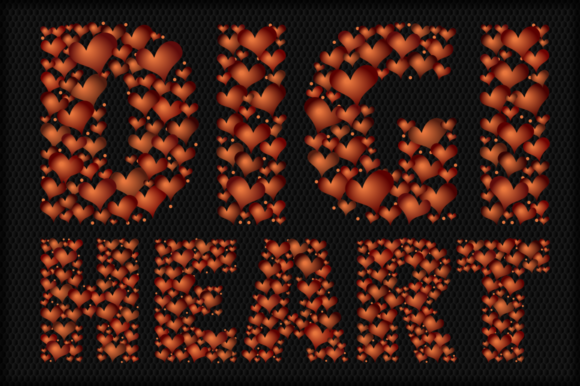
Venture into the realm of creativity with Digiheart Font, a symphony of colors that will captivate your digital expressions. Embark on a chromatic journey where your designs dance with vibrancy and allure.
Unleash your imagination with three distinct styles, each possessing its own charm. Explore the whimsical strokes of Digiheart Outline, the playful charm of Digiheart 3D, and the captivating elegance of Digiheart Rough. Let your designs resonate with individuality and flair.
With Digiheart Font, the boundaries of your creativity dissolve. Create stunning logos that burst with color, social media posts that ignite engagement, and digital art that leaves viewers spellbound. Transform your online presence into a mesmerizing spectacle, attracting followers and customers alike.
Immerse yourself in a world where color knows no bounds. Paint your digital canvas with Digiheart, letting your imagination run wild. Let your designs bloom with life, captivating hearts and igniting passions.